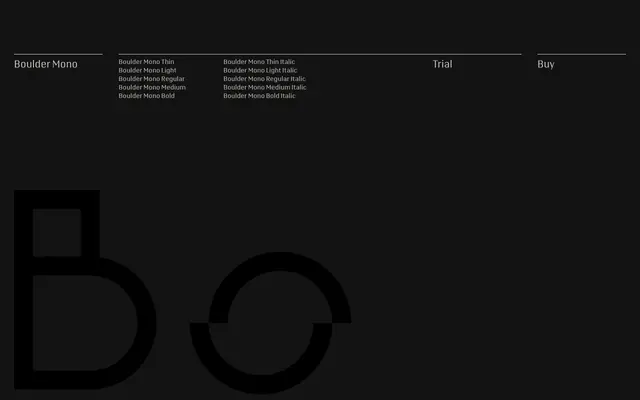
Boulder Mono
A monospaced typeface built on a geometric system where circles and squares swap their conventional roles to produce an energetic, unconventional rhythm.
Boulder Mono operates on a deliberate inversion of traditional sans-serif conventions: letters typically drawn with rounded forms appear as squares, while those usually angled become circular. At large sizes this contrast reads as fluid and visually arresting; at text sizes the fixed-width rhythm settles into something more familiar. The family runs across five weights from Thin to Bold, each with a matching italic, and includes OpenType features such as a schoolbook alternate 'a', case-sensitive punctuation, and proper fractions.
A monospaced typeface built on a geometric system of circles and squares, deliberately inverting conventional rounded and angular form expectations to produce a distinctive, playful result.